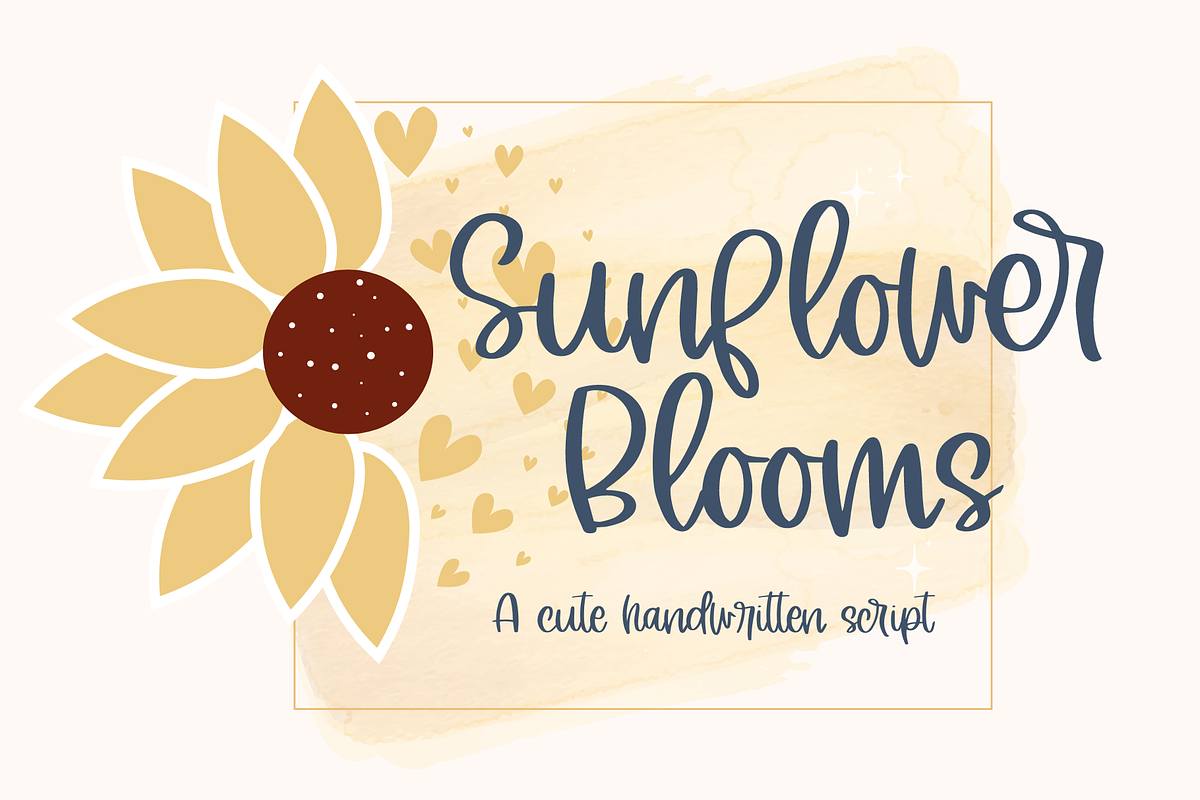
Sunflower Blooms, Handwritten Script Free Download
Sunflower Blooms, Handwritten Script Font Free Download is a cheerful and elegant handwritten typeface that brings warmth and charm to any project. Perfect for greeting cards, branding, invitations, and social media graphics, it adds a personal, friendly touch to your designs. Please note that you must purchase this font for commercial use, but it is available as a free download for testing purposes. Embrace the beauty of handwritten script with Sunflower Blooms, Handwritten Script Font Free Download, and infuse your projects with a sense of joy and creativity.